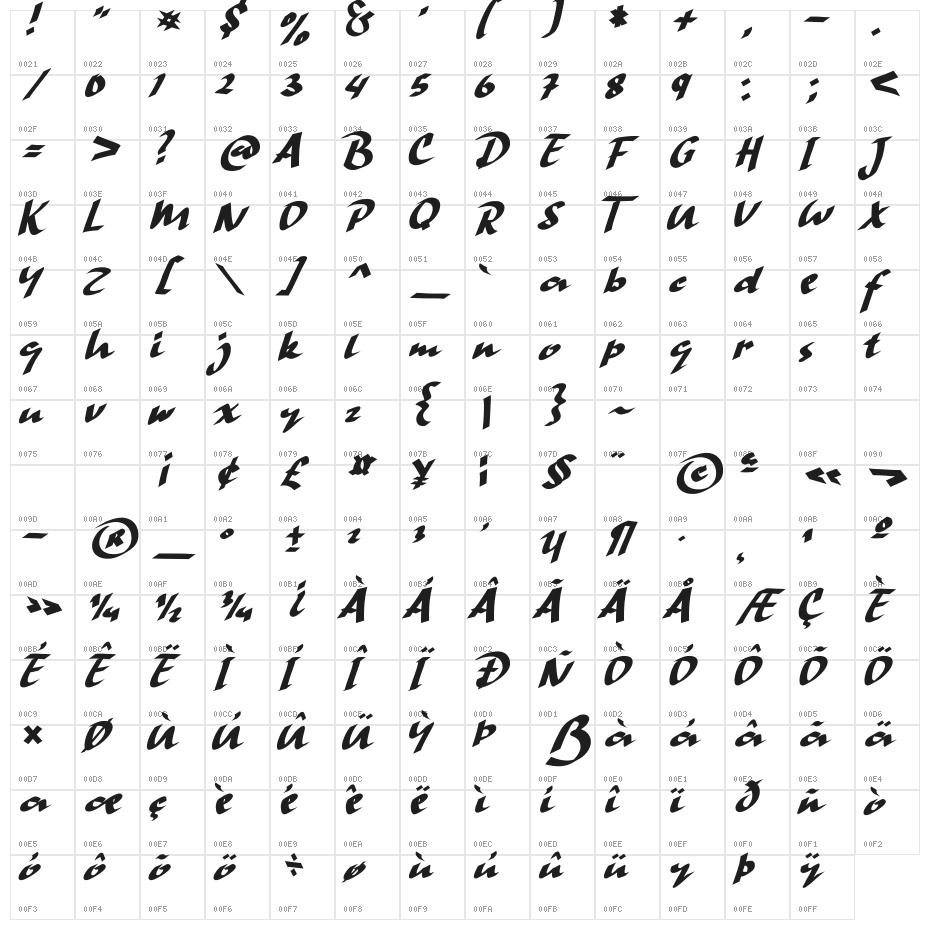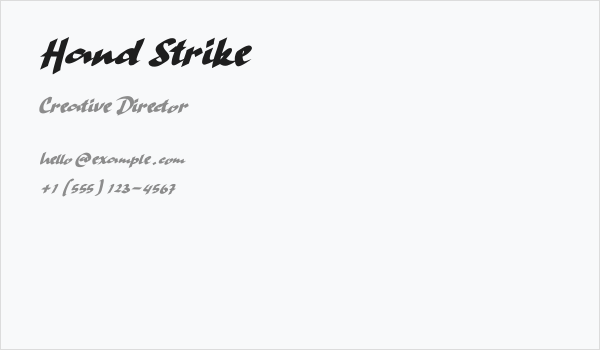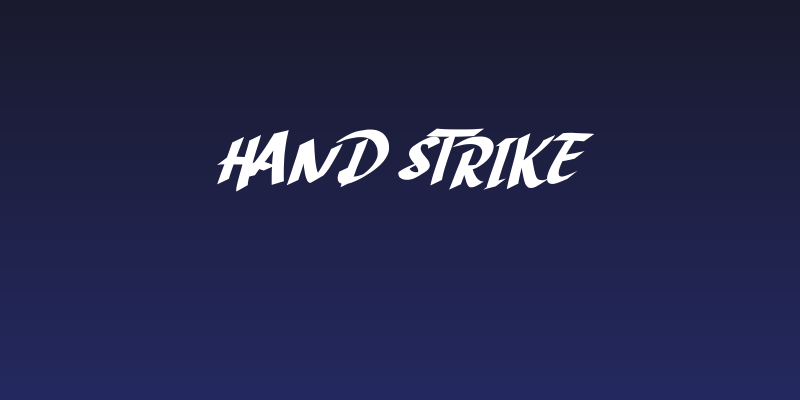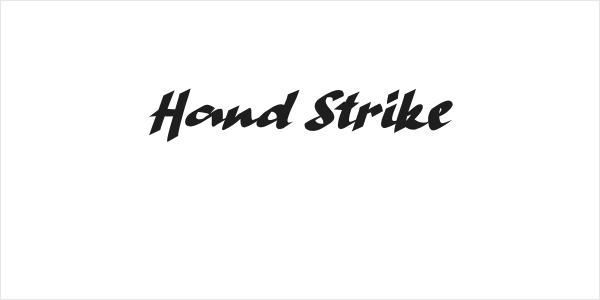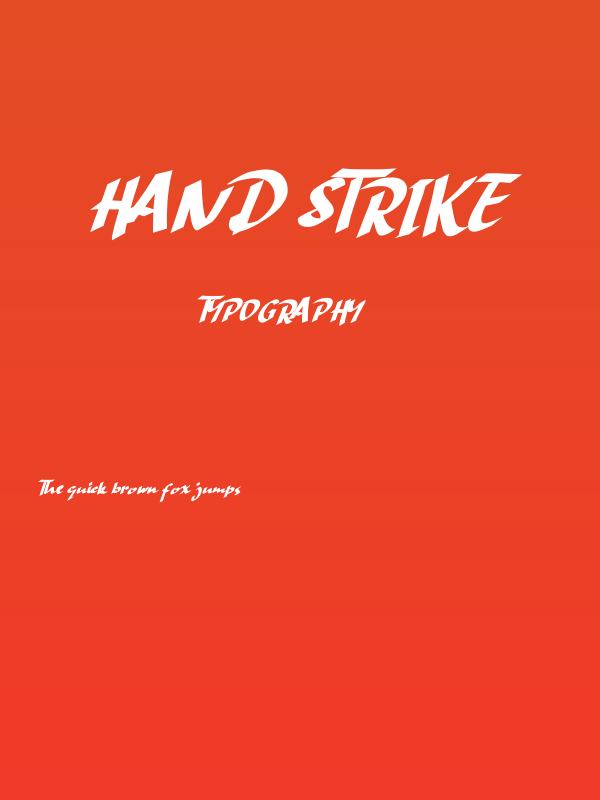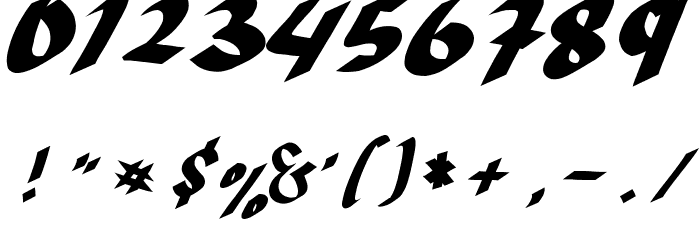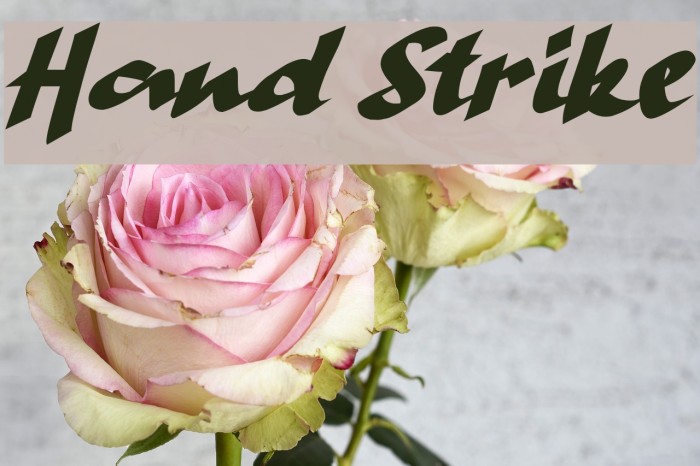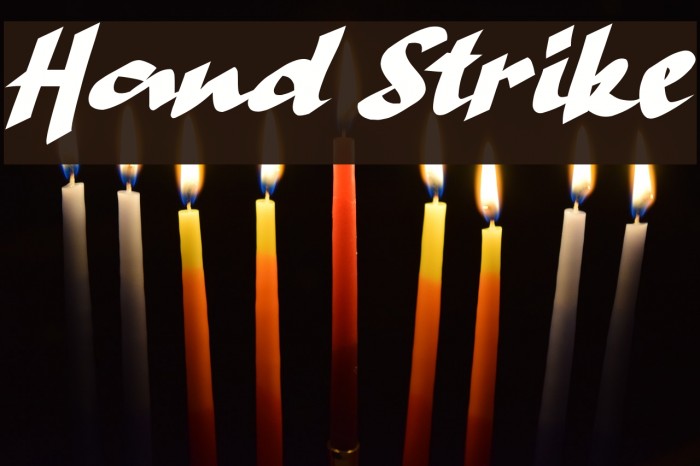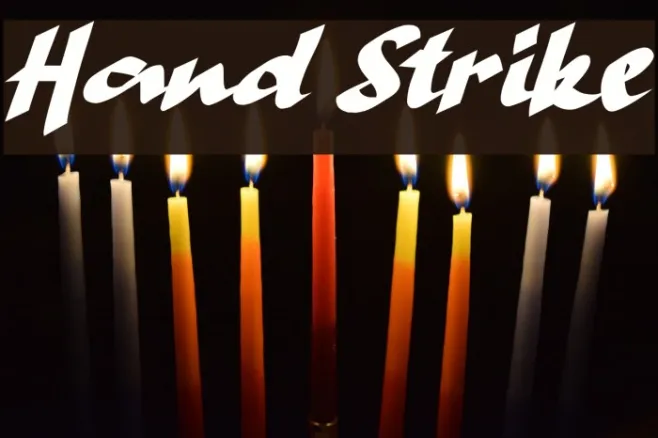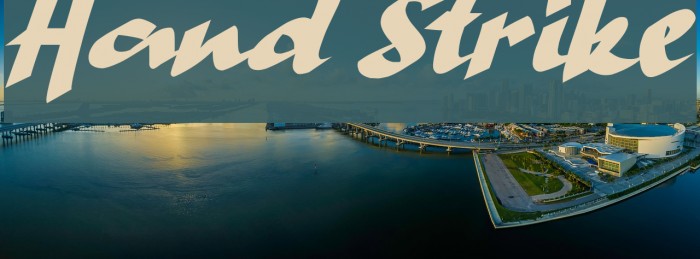
Hand Strike Font
Hand Strike Description
This font features a bold and dynamic script style, characterized by its sharp, angular strokes and energetic flow. The letters are crafted with a sense of movement, giving them a striking and impactful appearance. The uppercase letters are bold and commanding, while the lowercase letters maintain a consistent rhythm and style. Numbers and special characters are designed to match the overall aesthetic, ensuring a cohesive look. This font is perfect for projects that require a strong and expressive typeface.
| Proposed Projects | Ideal for branding, posters, album covers, and any design needing a bold, expressive touch. |